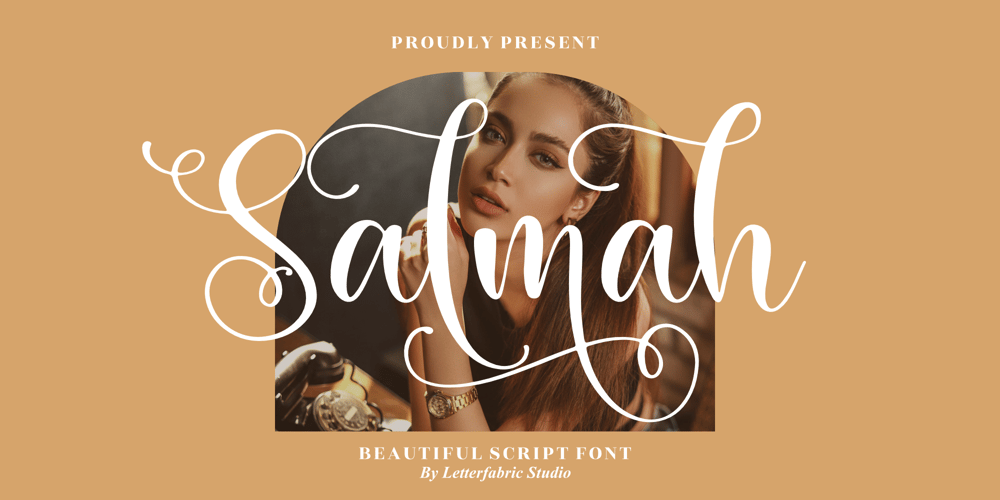
Salmah Font Family was designed by Heru Utama Putra and published by Letterena Studios. Salmah contains 2 styles and family package options. Salmah is a chic, refined script font that emanates sophistication and elegance. Its stylish alternates and ligatures make this font the perfect match for any project.Salmah is PUA encoded which means you can access all glyphs and swashes with ease!